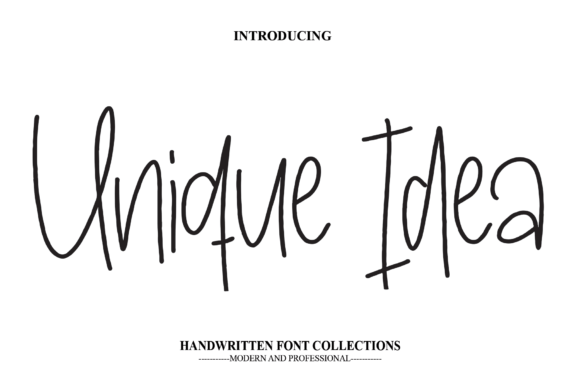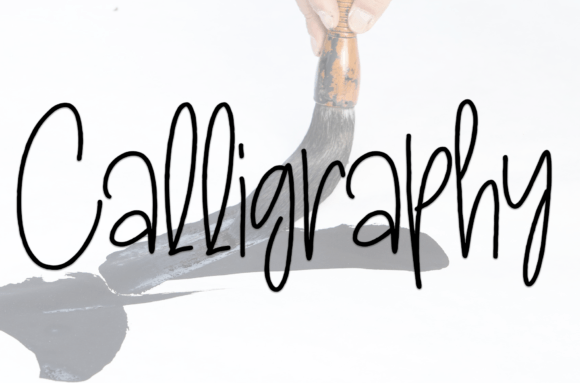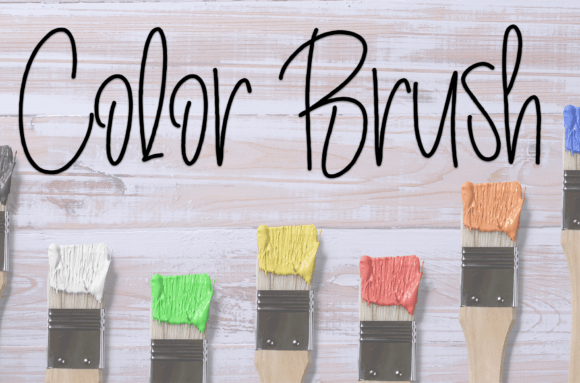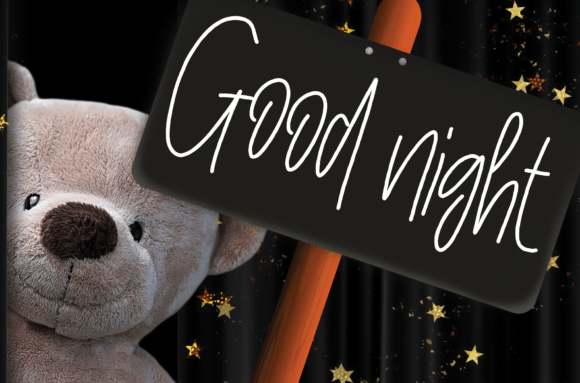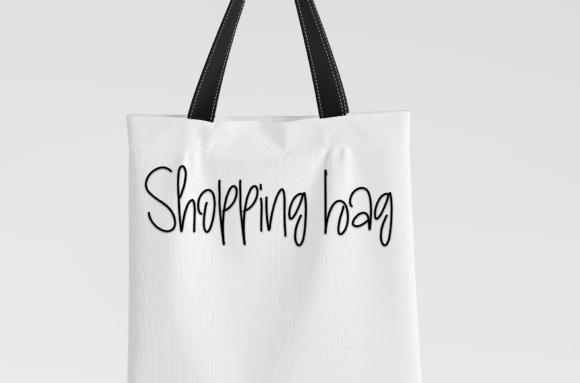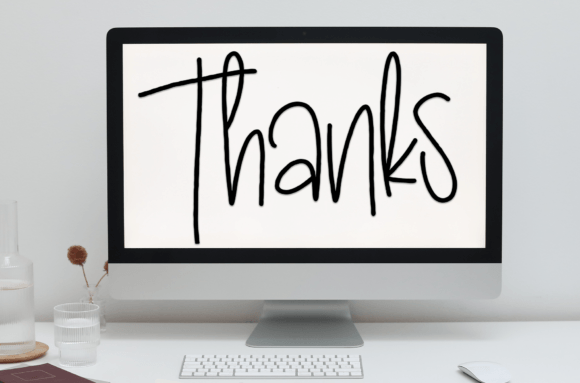
What Is Unique Idea Font?
Unique Idea is a sweet and friendly handwritten font designed to make your projects feel warm and inviting. With its cute, playful style, this font instantly adds personality and charm to your designs. Because it’s carefully crafted, Unique Idea is perfect for both personal and professional use.
You’ll love how easily it turns simple ideas into eye-catching creations.
Unique Idea is versatile and fits beautifully in many design situations. For example, it’s ideal for wedding invitations. Whether you’re creating formal invites or casual save-the-dates, this font adds a heartfelt, personal touch.
Additionally, it works great for greeting cards. If you want your messages to feel genuine and warm, Unique Idea helps you share your sentiments in style.
It’s also perfect for social media graphics. Whether you’re posting quotes, promotions, or announcements, this font creates a friendly, approachable look that stands out.
When you design product labels or packaging, Unique Idea brings a playful energy that feels memorable and fun.
Moreover, it’s a wonderful option for DIY projects, kids’ crafts, event signage, and custom gifts. No matter where you use it, this font makes everything feel more lively and engaging.
Why Should You Choose Unique Idea Font?
There are plenty of reasons to add Unique Idea to your font library. First, it’s easy to read at any size. Each letter maintains clarity, whether you use it for headlines or smaller text.
Also, Unique Idea pairs well with clean sans-serif or serif fonts, which makes creating balanced, professional layouts effortless.
Designers love that it looks polished immediately, saving time while delivering high-quality results.
Unique Idea Font brings joy, sweetness, and a hint of playfulness to every project. For example, when you want your designs to feel inviting and fun, this font makes it simple.
Even minimalist layouts come to life with Unique Idea’s charming character. Whether you’re designing wedding stationery, greeting cards, or social media content, your work will look professional and warm.
Using a high-quality handwritten font also shows your attention to detail and care for beautiful design. This builds trust and creates a lasting impression with your audience.
Unique Idea Font is more than a typeface—it’s a creative companion that helps you share your ideas with warmth and style. From wedding invitations and cards to branding and social media, this font adapts easily and enhances any design.